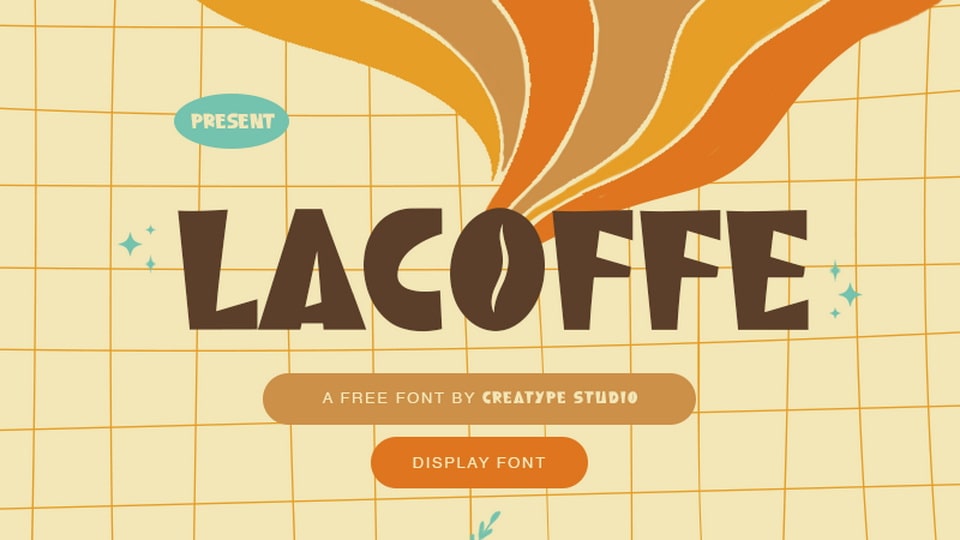
Lacoffee is a bold and playful cartoon font that draws inspiration from the rich, rounded forms of coffee beans. Each character has a warm, bean-like shape with smooth curves and thick strokes, capturing the cozy, welcoming feel of a coffee shop. Designed to be both fun and approachable, Lacoffee font is perfect for food packaging, cafe branding, or any project that craves a touch of caffeine-fueled personality. The plump, rounded forms give it an inviting, lively vibe, while the playful design keeps things light and friendly.
Ideal for logos, menus, and posters, Lacoffee font brings the comfort of a warm cup of coffee to any design.